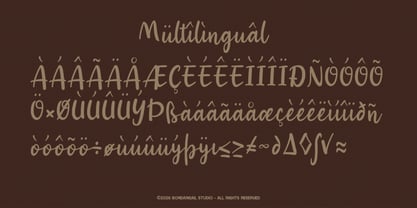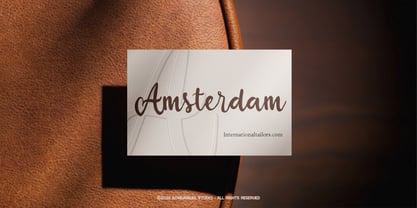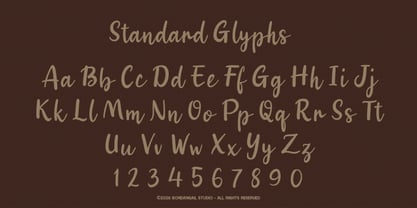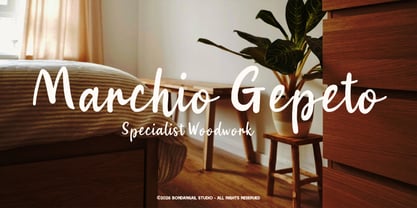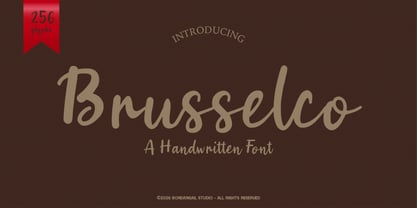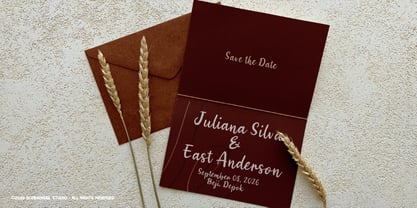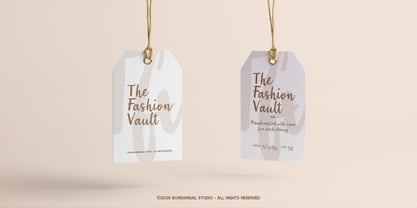
Brusselco
La famille de polices Brusselco a été conçue par Wahyu Eka Prasetya, Bondan Gail Saputro et publiée par BondanGail. Brusselco contient 1 styles. En savoir plus sur cette famille
Brusselco is a modern handwritten script font with smooth flowing strokes, rounded curves, and a natural signature-style appearance. Designed to create a warm and personal feel, this font blends casual elegance with clean readability, making it perfect for branding, logos, packaging, social media, quotes, invitations, beauty products, and lifestyle designs.
With its stylish handwritten character and playful script flow, Brusselco works beautifully for modern creative projects that need a friendly, expressive, and authentic look. Ideal for feminine branding, boutique businesses, photography, fashion, and contemporary typography designs.
Brusselco Script features:
• 1 Script style
• Uppercase, Lowercase, Numerals, Symbols, and Punctuation
• Multilingual support